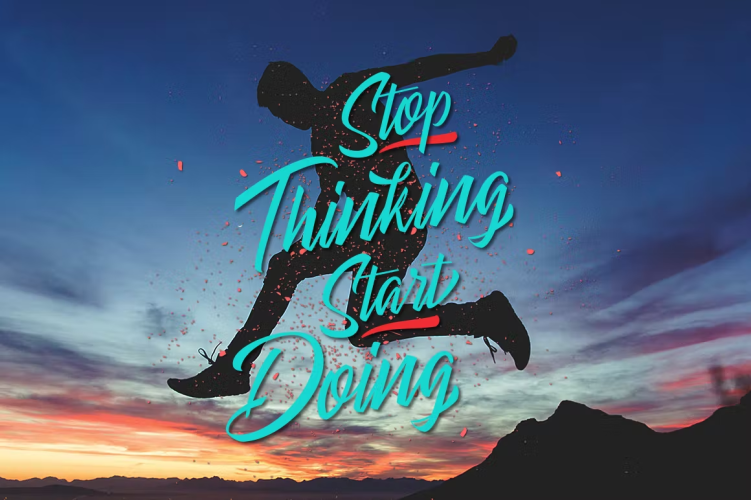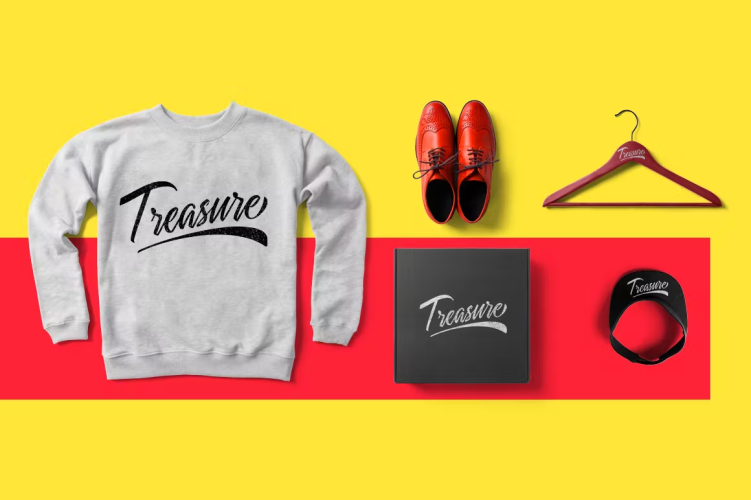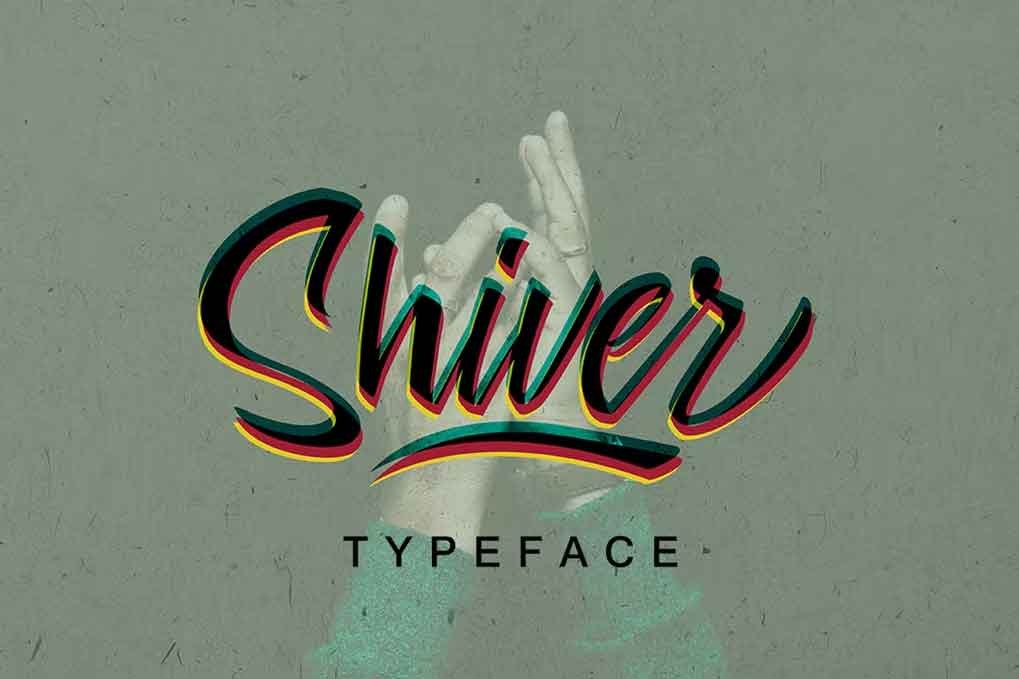
Shiver Script Font
Introducing Shiver, a typeface created stylized handwriting is clearly visible charms, made more elegant impression posts and more passionate. It comes with different styles that will make a wonderful impression
Shiver Script is handwritten stylish copperplate calligraphy fonts, combines from copperplate to contemporary typeface with a dancing baseline, classic and elegant touch. Can be used for various purposes.such as headings, signature, logos, wedding invitation, t-shirt, letterhead, signage, lable, news, posters, badges etc.
Shiver Script Font is a Script And Handwritten font that brings a professional and versatile look to your projects. Introducing  Shiver , a typeface created stylized handwriting is clearly visible charms, made more elegant impression posts and more passionate.